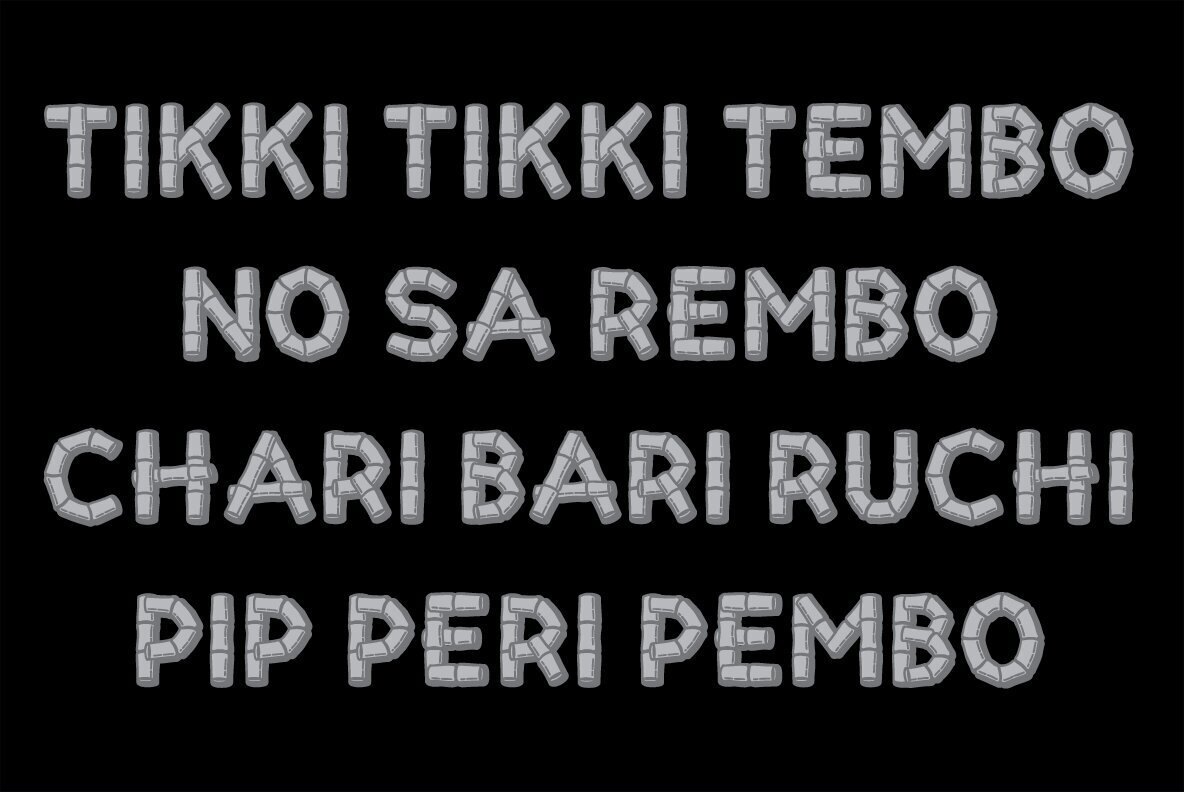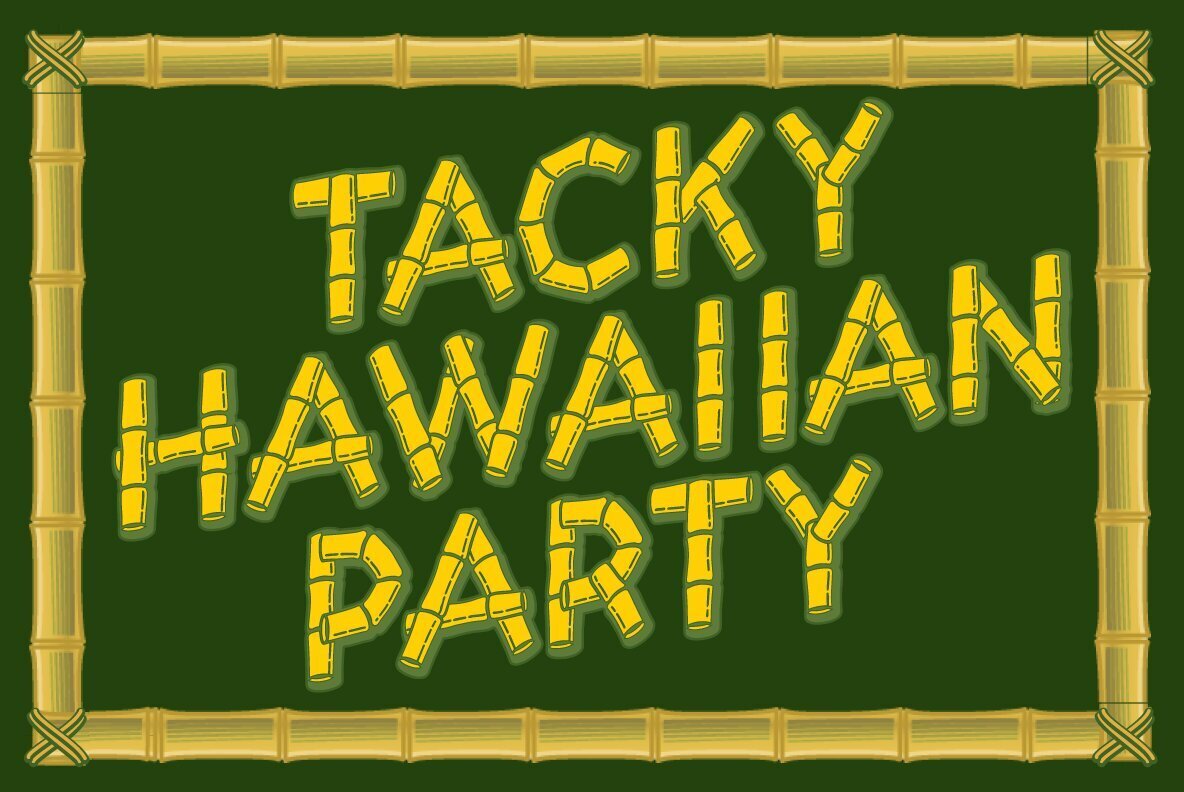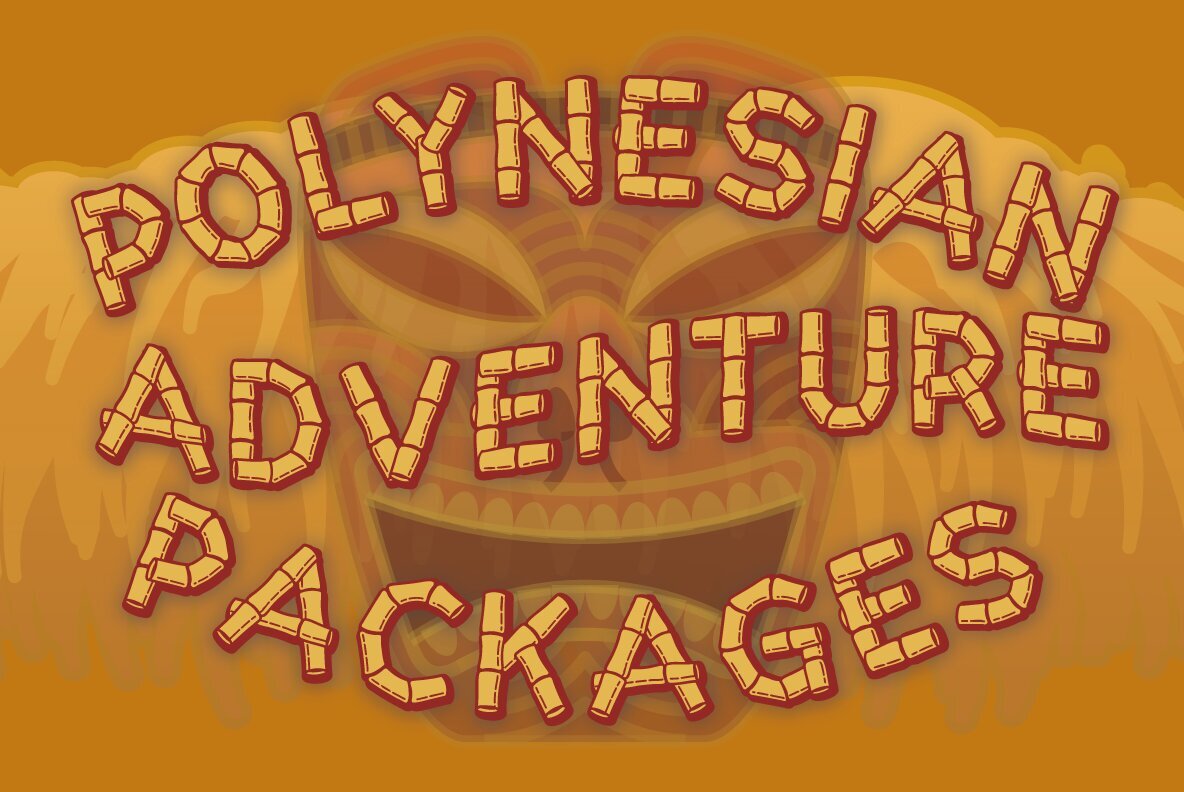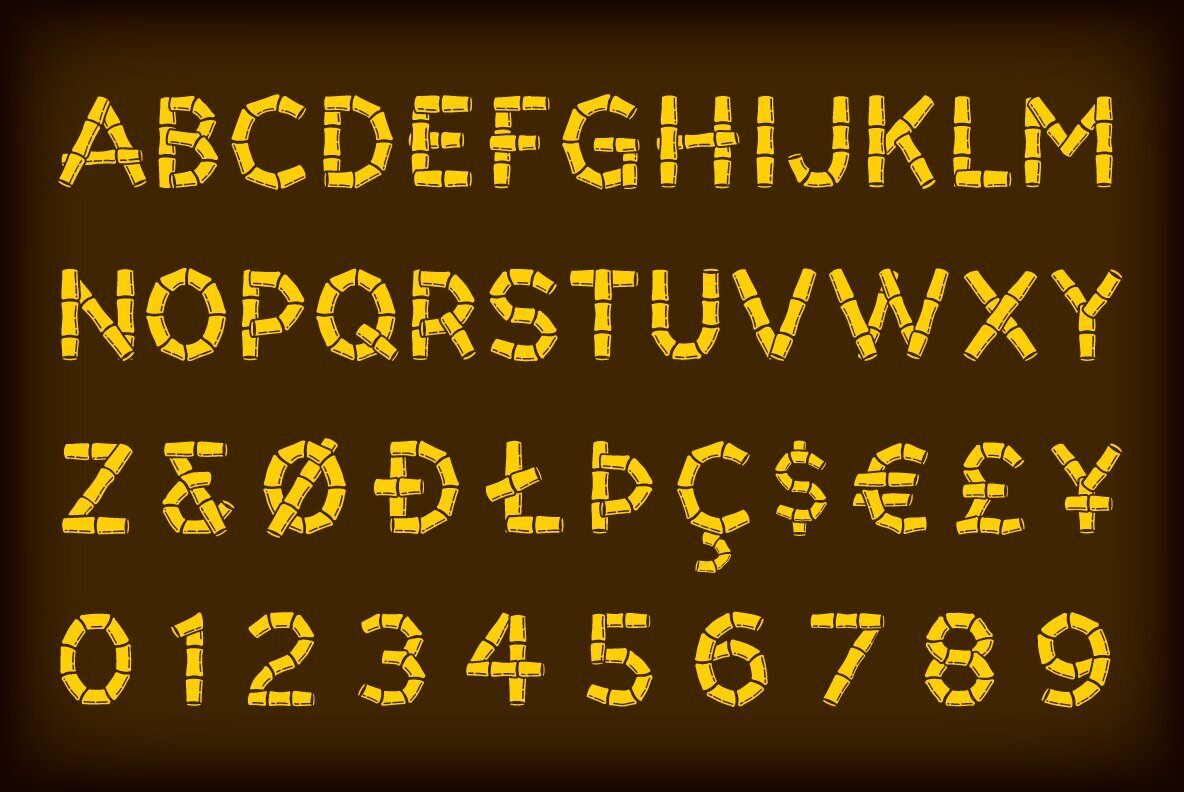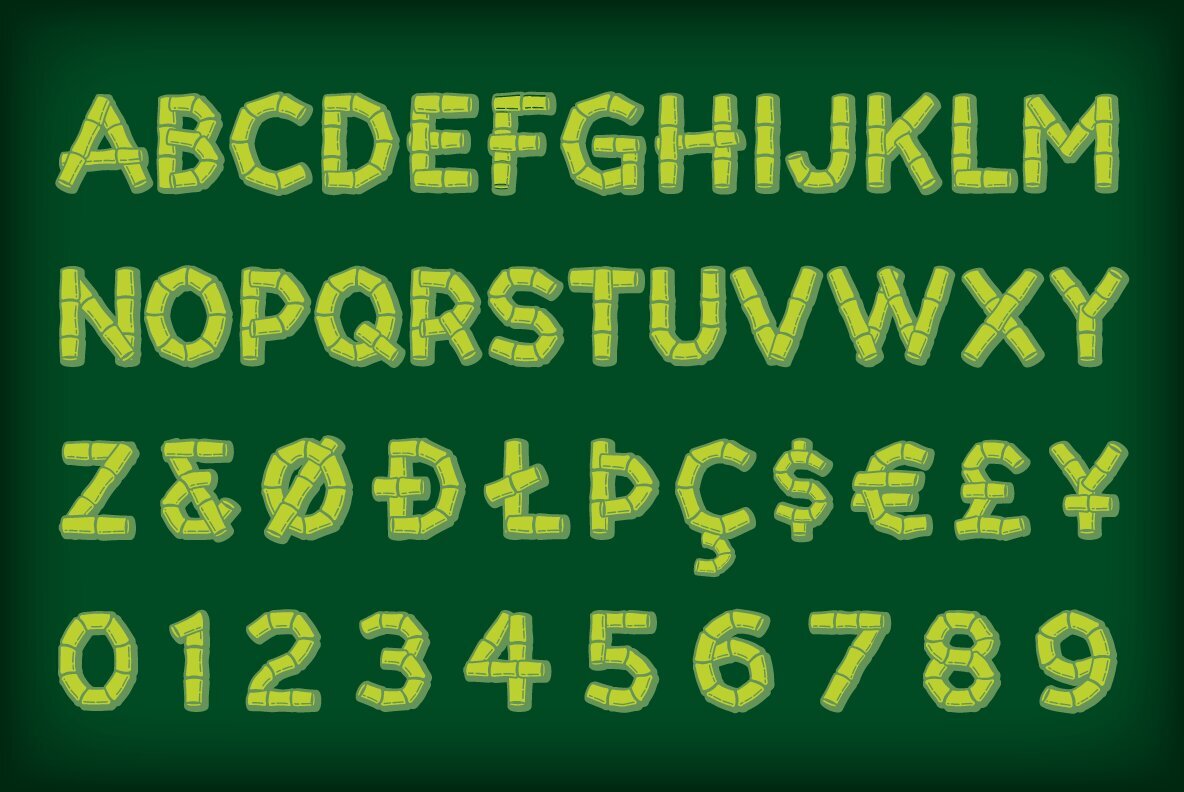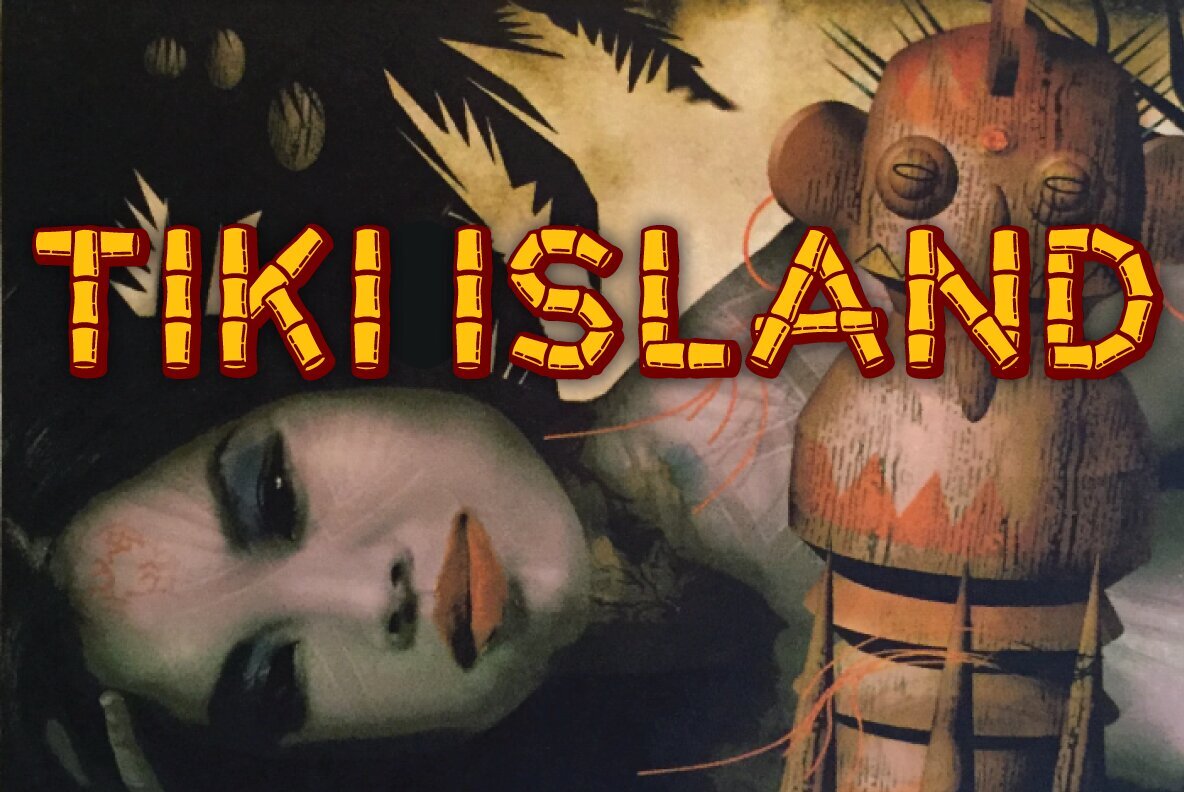
Tiki Font
Tiki Regular
Tiki Solid
It's here, it's new and it's bamboo.
Not to be mistaken for the lush magic of the actual tropical rain forest, Tiki evokes more of a feeling of an Oriental Trading Co. tacky Hawaiian party or the ambiance of your weird friend's father's basement "Tiki" bar, resplendent with bamboo furniture from Sears, photos of scantily clad Tahitian beauties, polyester grass mats and bobble head Hula dolls.
Tiki comes as a family of two fonts, the basic outlined version and a solid version, which may be used separately or combined to produce multi-colored effects.